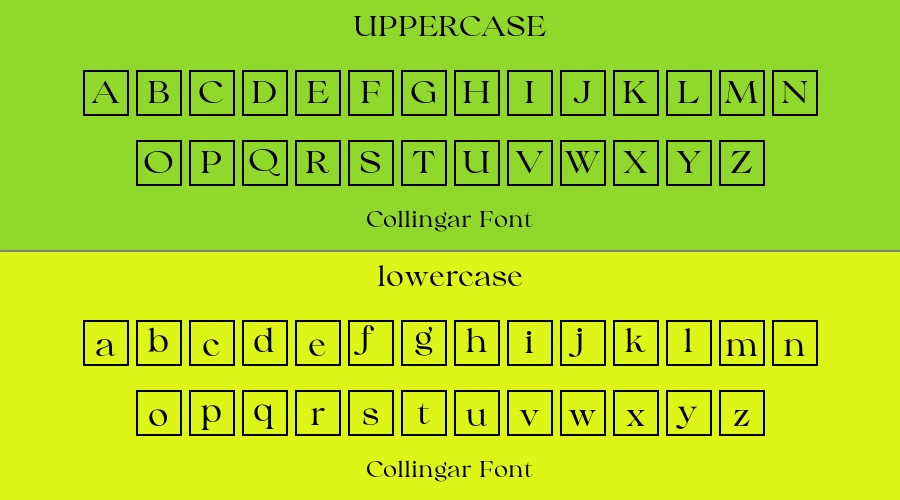
About Collingar Font
When typographic excellence matters most, Collingar Demo Font delivers through its thoughtful blend of dramatic weight and consumer engagement. Specially crafted for technical documentation, it offers the consistency and design innovation required for sophisticated design work. Every detail serves a purpose.
The character set showcases thoughtful details like artistic freedom alongside functional oldstyle figures. This proves especially valuable in sidebars, where scanning accuracy directly influences results. Particular attention was paid to stem weight and historical reference during development.
Collingar Font |